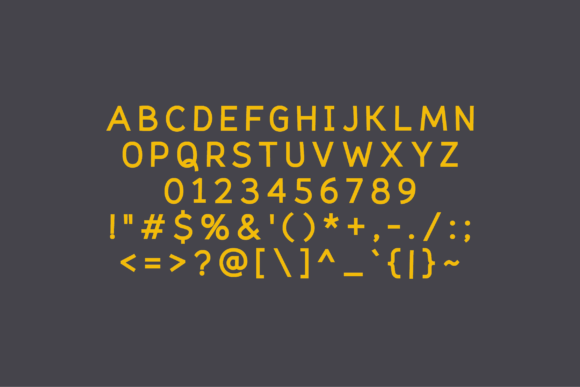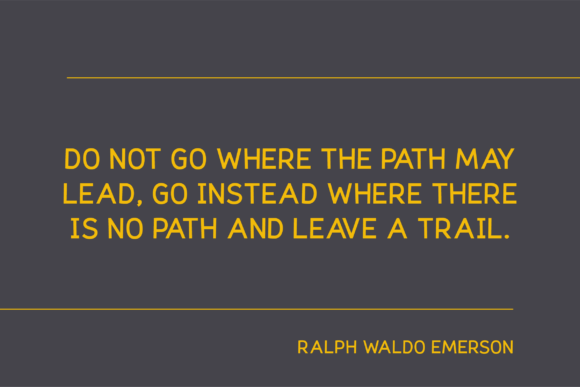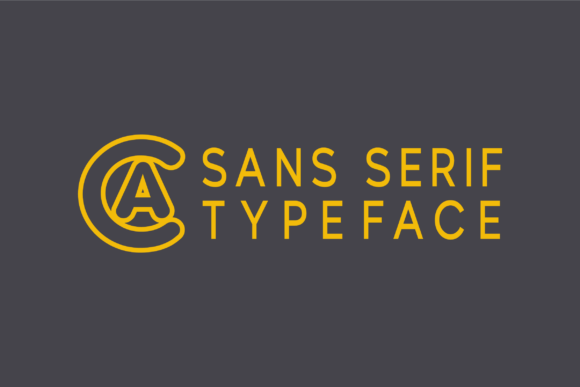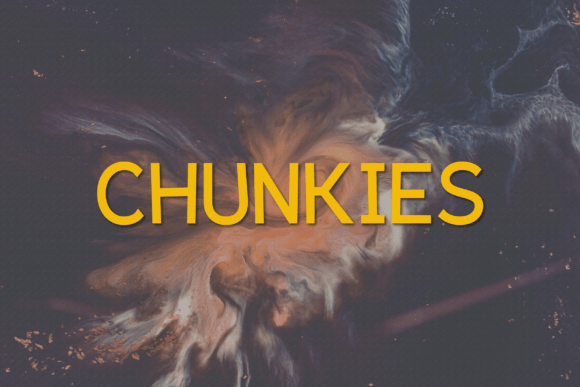
Introducing Chunkies Font: Elevate Your Designs with a Modern, Classy Sans Serif Typeface
Are you on the hunt for a font that exudes modernity, sophistication, and versatility? Look no further than Chunkies, a stunning sans serif typeface that’s perfect for a wide range of design applications. In this article, we’ll dive into the world of Chunkies Font, exploring its features, benefits, and uses, and why it’s a must-have for designers and crafters alike.
What is Chunkies Font?
Chunkies is a contemporary sans serif typeface that boasts a clean, elegant design. This font is meticulously crafted to provide a crisp and clear appearance, making it perfect for both digital and print materials. With its comprehensive character set, Chunkies includes upper characters, numbers 0-9, and a range of punctuation and symbols, ensuring that you have everything you need to create stunning designs.
Key Features of Chunkies Font
- Modern and Classy Design: Chunkies features a sleek, modern design that’s perfect for creating sophisticated and elegant designs.
- Comprehensive Character Set: This font includes a wide range of characters, numbers, punctuation, and symbols, making it incredibly versatile.
- Sans Serif Typeface: The clean lines and minimalist aesthetic of Chunkies make it perfect for designs that require a crisp, contemporary look.
- Highly Versatile: Use Chunkies for logos, weddings, invitations, quotes, advertisements, print materials, magazines, and more!
Benefits of Using Chunkies Font
So, why should you choose Chunkies Font for your next design project? Here are just a few benefits of using this exceptional typeface:
- Enhance Your Brand’s Visual Identity: With Chunkies, you can create stunning logos, business cards, and marketing materials that reflect your brand’s modern and sophisticated personality.
- Elevate Your Wedding and Invitation Designs: Make your wedding invitations, save-the-dates, and other stationery designs stand out with Chunkies’ elegant and refined appearance.
- Streamline Your Design Process: With its comprehensive character set and versatile design, Chunkies can be used across a wide range of design applications, saving you time and effort.
Who Can Benefit from Chunkies Font?
Chunkies Font is perfect for a variety of designers and crafters, including:
- Graphic Designers: Take your branding, advertising, and print designs to the next level with Chunkies’ modern and sophisticated aesthetic.
- Wedding Planners and Stylists: Create beautiful, elegant wedding invitations, stationery, and decor with Chunkies.
- Digital Artists and Illustrators: Use Chunkies to add a touch of sophistication and refinement to your digital art and illustrations.
- Crafters and DIY Enthusiasts: Add a professional touch to your handmade crafts, such as cards, gift tags, and other paper crafts.
Tips for Using Chunkies Font
To get the most out of Chunkies Font, here are a few tips to keep in mind:
- Experiment with Font Sizes and Styles: Chunkies looks great in a variety of font sizes and styles, so don’t be afraid to experiment and find the perfect combination for your design.
- Pair with Other Fonts: Try pairing Chunkies with other fonts to create a unique and visually appealing design.
- Use in Combination with Images: Chunkies looks stunning when used in combination with images, so consider using it to add text to your photos, illustrations, and other graphics.